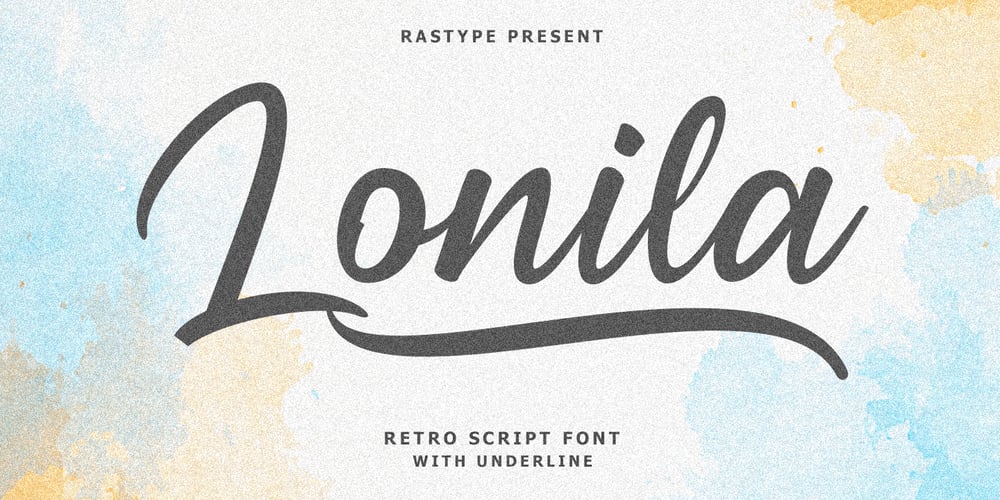
Lonila Font Family was designed by Muhammad Taufik and published by Rastype Studio. Lonila contains 2 styles and family package options. Lonila Retro Script Font with Underline is a font that is suitable for poster designs, book covers, weddings and other designs according to retro-style tastes.Lonila Retro Script Font with Underline is also equipped with multi-language.Tags